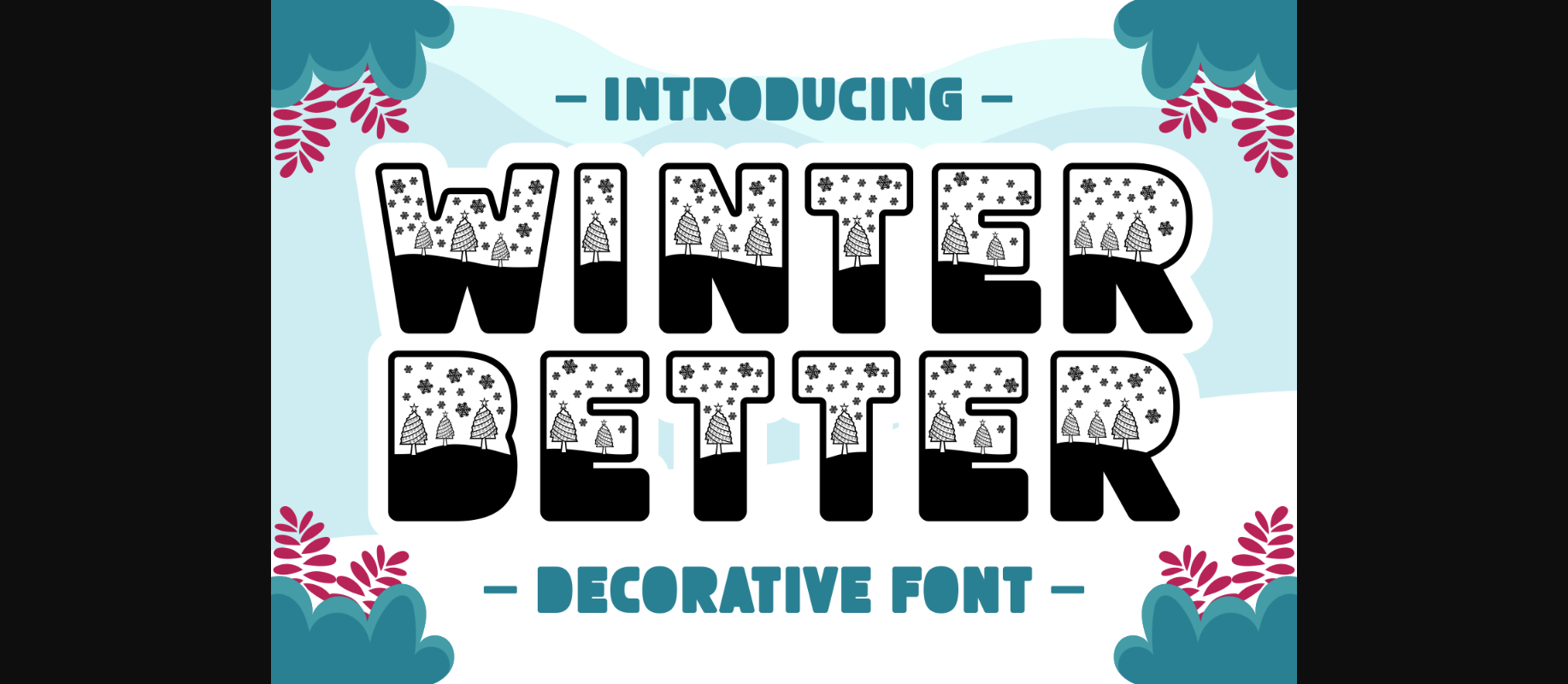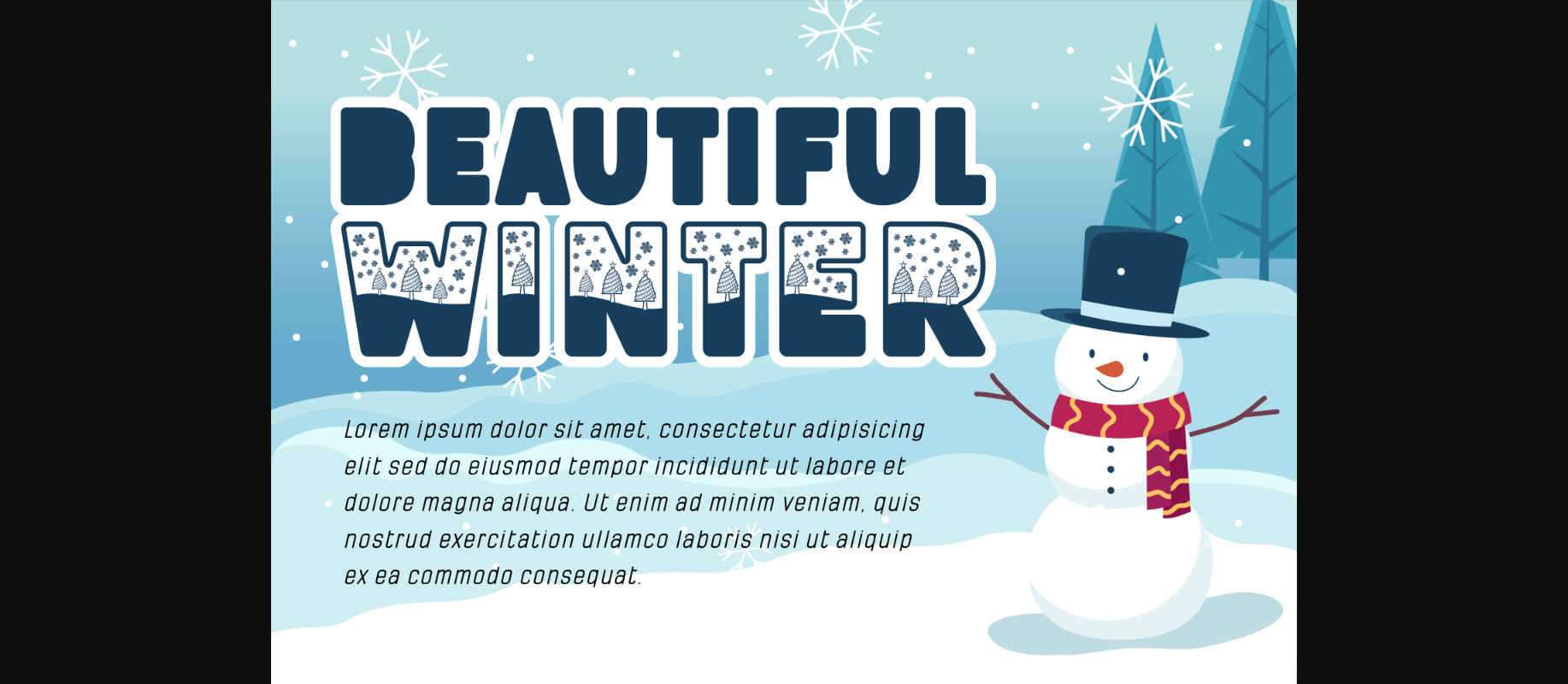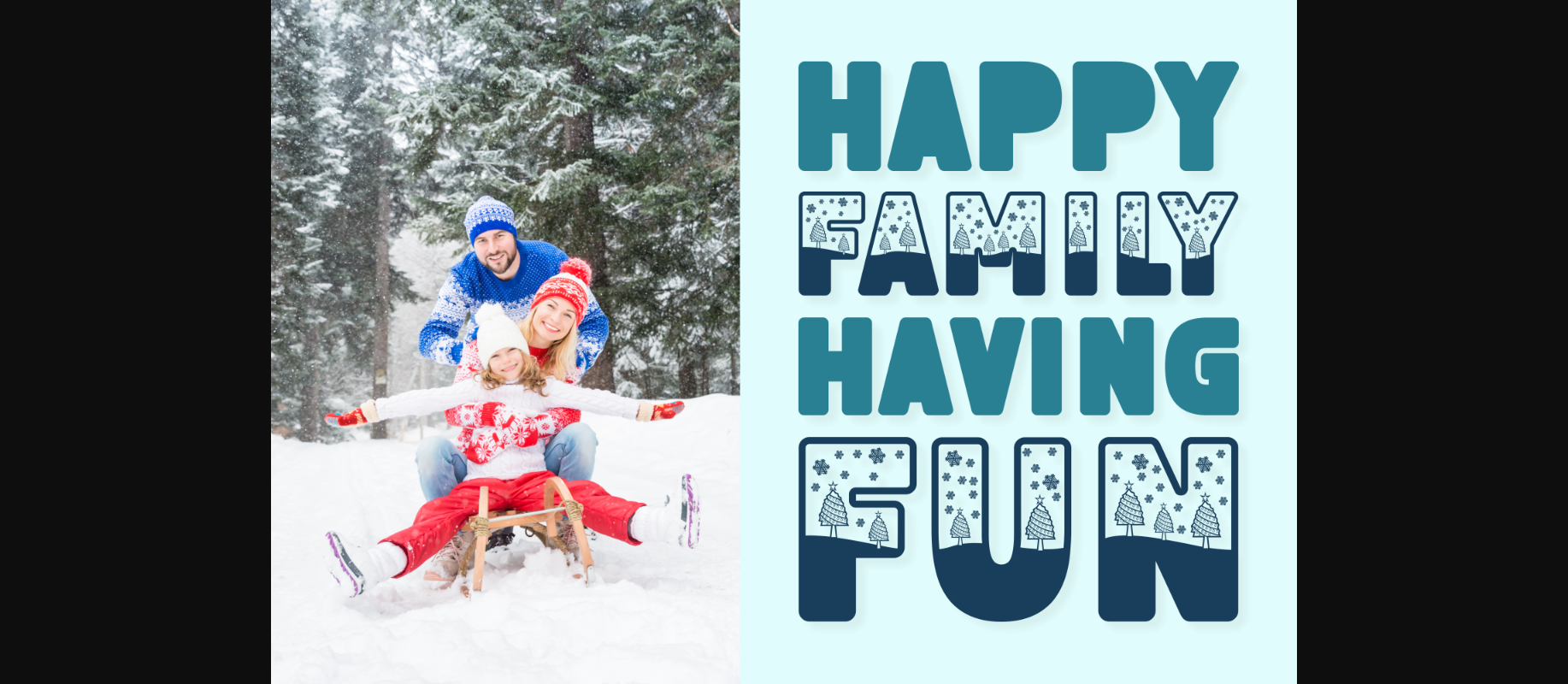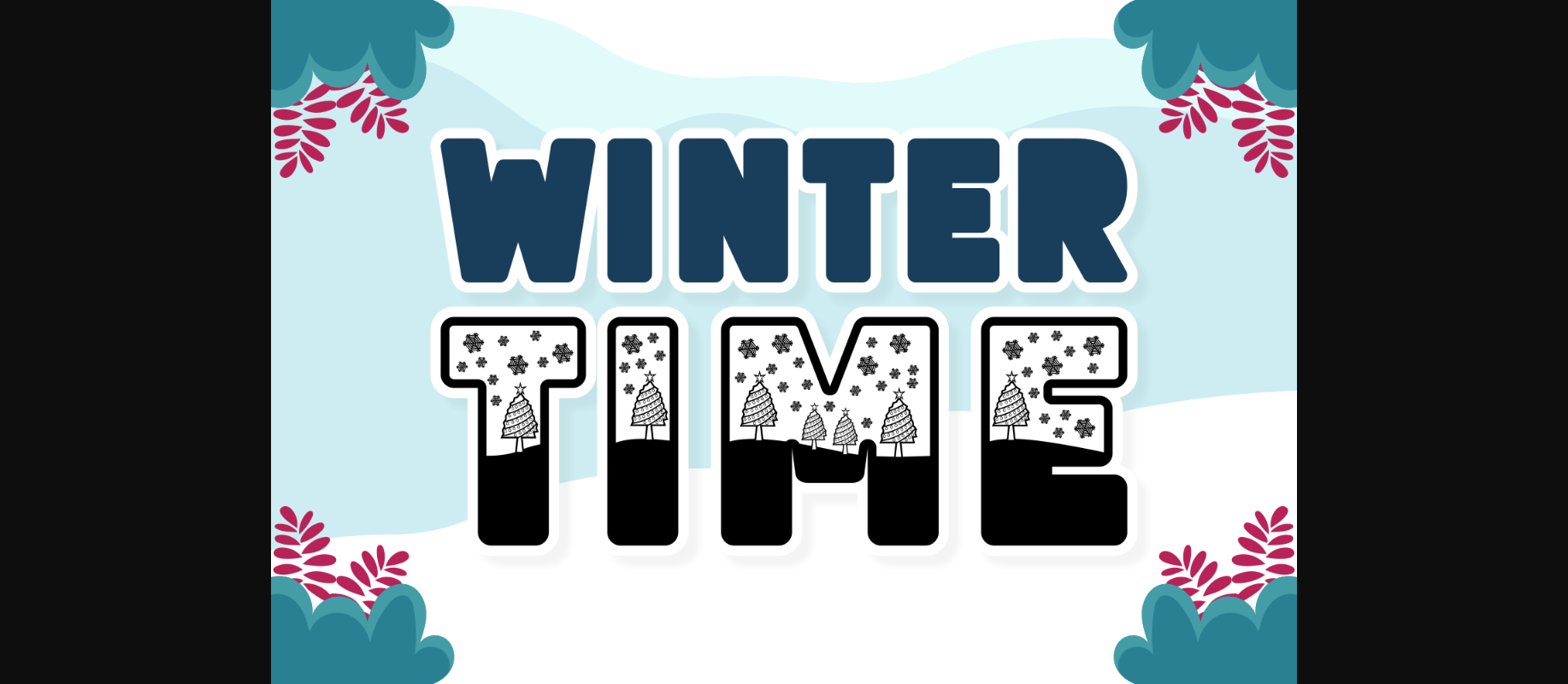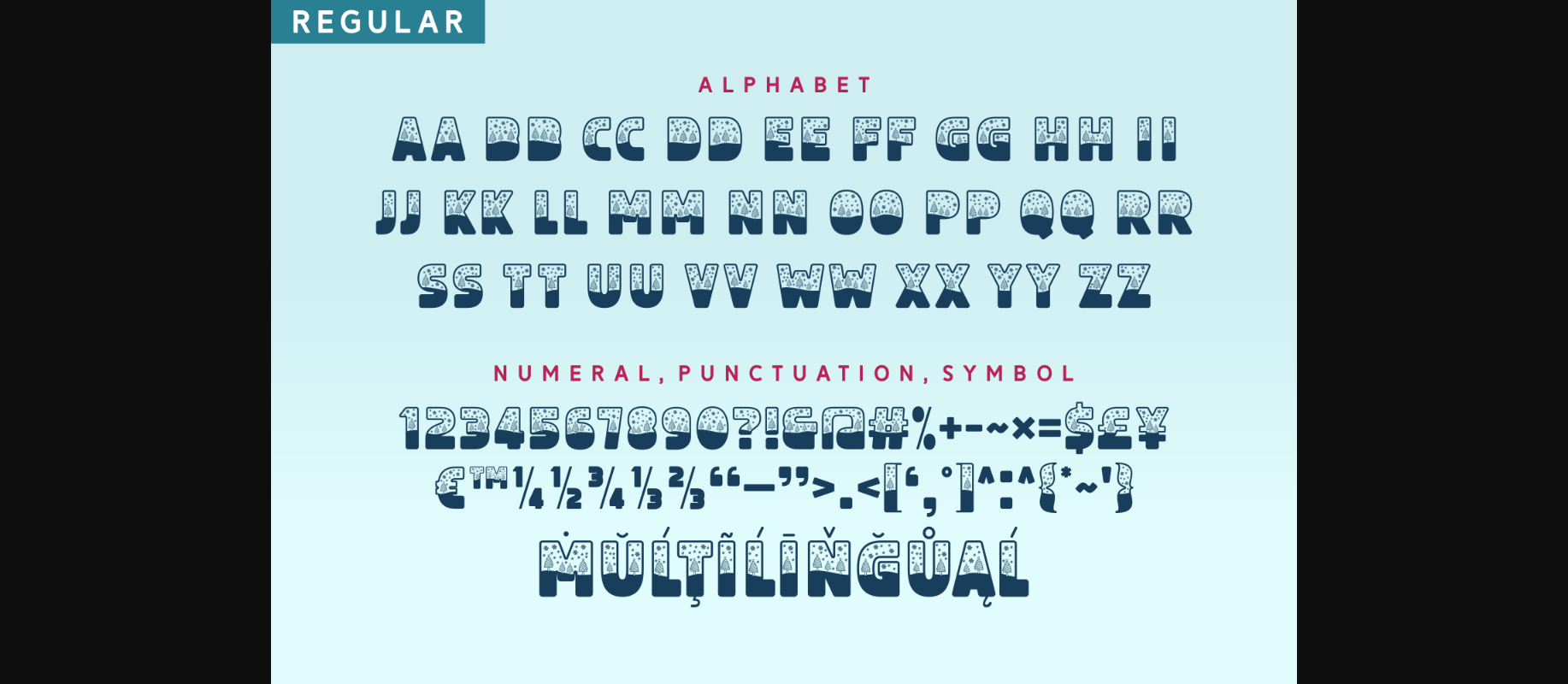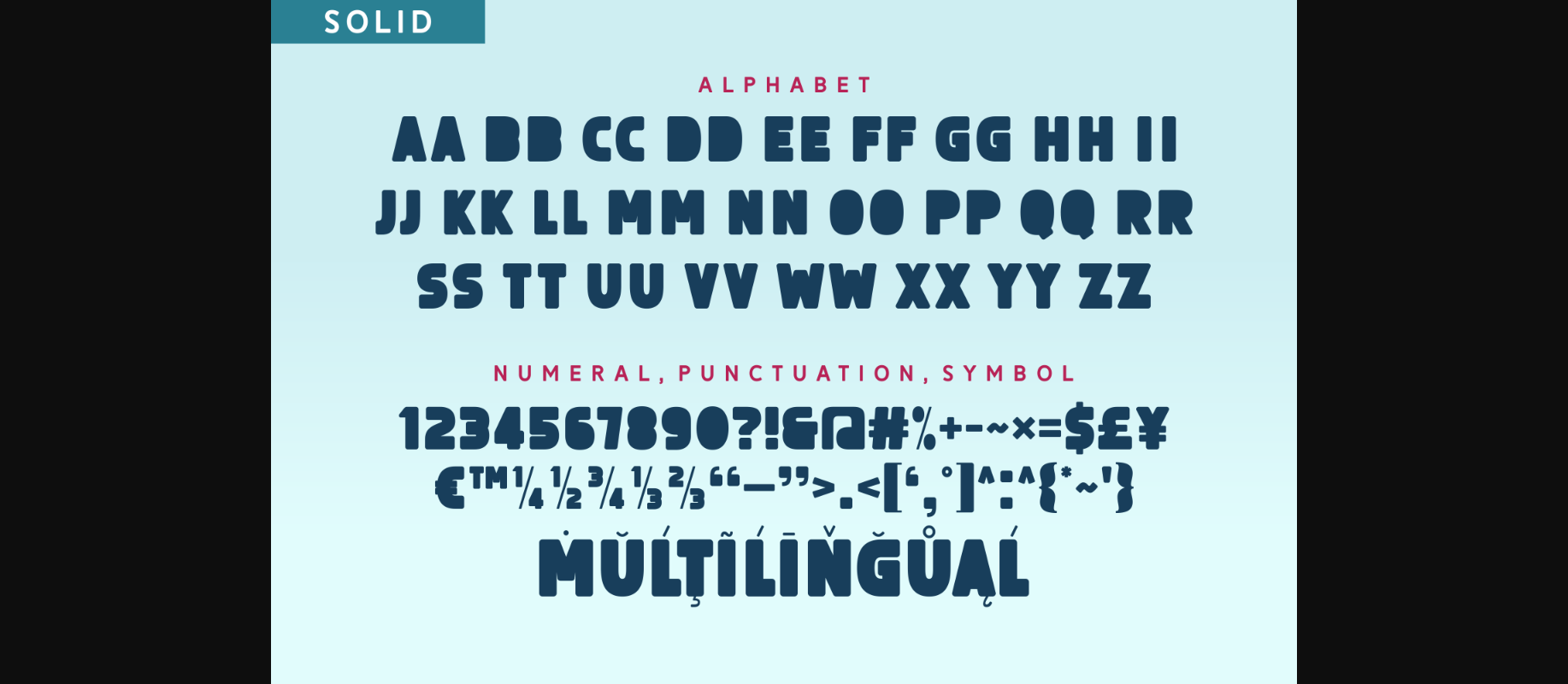
About Winter Better Font
Winter Better is a cute and snowy decorative font. Make your winter-themed typography stand out by using this charming font! It is perfect for posters, Christmas cards, invitations, outdoor signs, and many more.